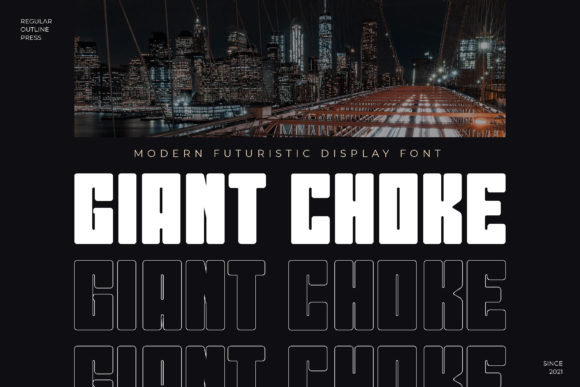
Introducing Giant Choke Font: The Ultimate Display Font for Bold Designs
Are you tired of using the same old fonts for your designs? Look no further than the Giant Choke font, a cool, bold, and thick lettered display font that’s perfect for adding a unique touch to your web designs, business cards, and more. In this article, we’ll dive into the features and benefits of the Giant Choke font, and explore how it can elevate your design game.
What is Giant Choke Font?
Giant Choke font is a display font that’s designed to make a statement. With its bold and thick lettering, it’s ideal for creating eye-catching designs that grab attention. The font is perfect for designers and crafters who want to add a touch of personality to their work, and is suitable for a wide range of projects, from web designs and business cards to posters and flyers.
Key Features of Giant Choke Font
- Bold and Thick Lettering: The Giant Choke font features bold and thick lettering that’s perfect for creating eye-catching designs.
- Unique and Quirky: The font has a unique and quirky feel that’s sure to add a touch of personality to your designs.
- Highly Versatile: The Giant Choke font is highly versatile and can be used for a wide range of projects, from web designs and business cards to posters and flyers.
- Easily Readable: Despite its bold and thick lettering, the Giant Choke font is easily readable, making it perfect for designs that require a clear and concise message.
Benefits of Using Giant Choke Font
So why choose the Giant Choke font for your designs? Here are just a few benefits of using this amazing display font:
- Adds a Unique Touch: The Giant Choke font adds a unique touch to your designs, setting them apart from the crowd.
- Grabs Attention: The bold and thick lettering of the Giant Choke font is sure to grab attention and draw the eye.
- Perfect for Branding: The Giant Choke font is perfect for branding projects, as it allows you to create a bold and memorable logo that’s sure to stick in customers’ minds.
- Easy to Use: The Giant Choke font is easy to use and can be easily integrated into your designs, even if you’re not a professional designer.
Design Ideas Using Giant Choke Font
The Giant Choke font is highly versatile, and can be used for a wide range of design projects. Here are just a few ideas to get you started:
- Web Designs: Use the Giant Choke font to create bold and eye-catching web designs that grab attention.
- Business Cards: Add a unique touch to your business cards with the Giant Choke font.
- Posters and Flyers: Use the Giant Choke font to create bold and eye-catching posters and flyers.
- Logos and Branding: Use the Giant Choke font to create a bold and memorable logo that’s sure to stick in customers’ minds.
| Font Name | Giant Choke Font |
| Author | fontherapy |
In conclusion, the Giant Choke font is a cool, bold, and thick lettered display font that’s perfect for adding a unique touch to your designs. With its highly versatile and easily readable design, it’s suitable for a wide range of projects, from web designs and business cards to posters and flyers. Whether you’re a designer or crafter, the Giant Choke font is sure to elevate your design game and help you create bold and eye-catching designs that grab attention.